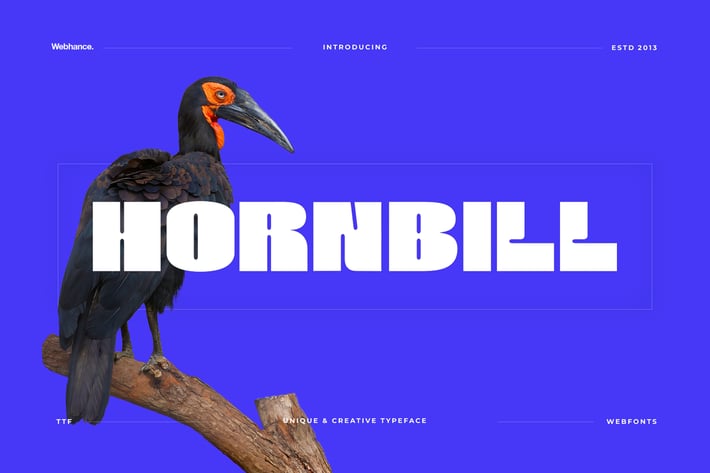
Hornbill - Modern Display Font
Introducing Hornbill - a dynamic and modern display font meticulously crafted for impactful designs. With bold letters and striking glyphs, this font exudes confidence and captivates attention. Whether you're creating a powerful brand identity, designing eye-catching movie posters, crafting thumbnails for social media posts, or enhancing your blog visuals, Hornbill is your go-to choice.
Its versatility shines through with both uppercase and lowercase options, allowing you to play with a variety of styles. The boldness of Hornbill ensures that your message stands out, making it perfect for logos that leave a lasting impression.
Transform your creative projects with Hornbill, the font that effortlessly blends boldness and beauty to elevate your design game.